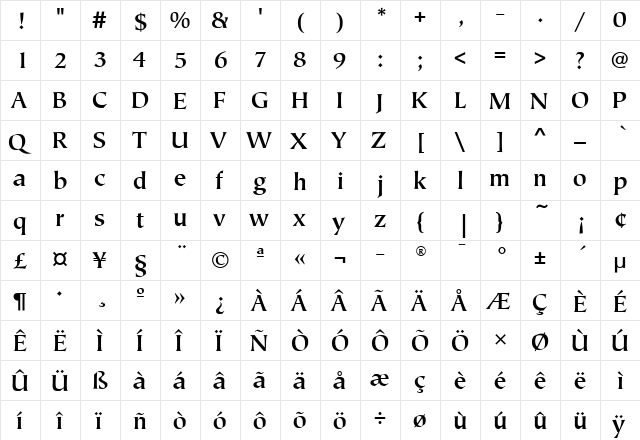
TiepoloITC Bold
Design Context for TiepoloITC Typeface
TiepoloITC is a composed and adaptable typeface that performs quietly and consistently across a wide range of design contexts. The heavy weight commands attention and anchors typographic hierarchies.